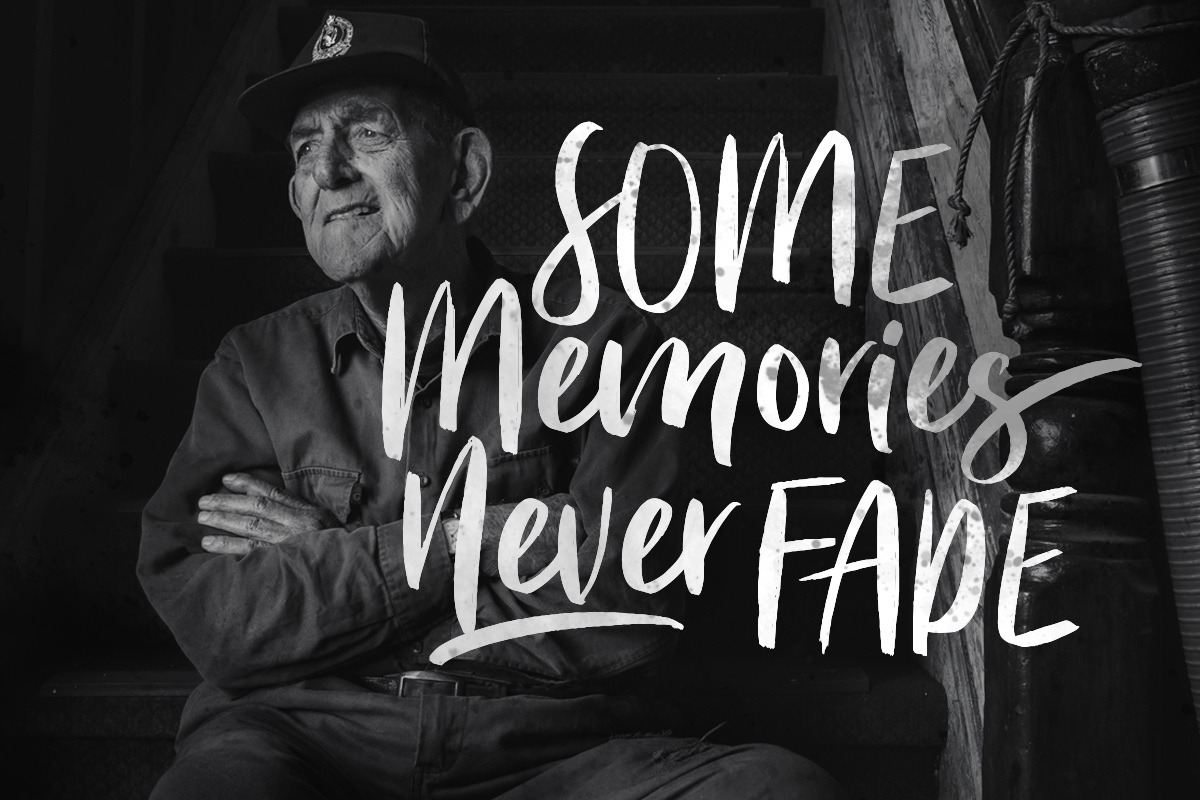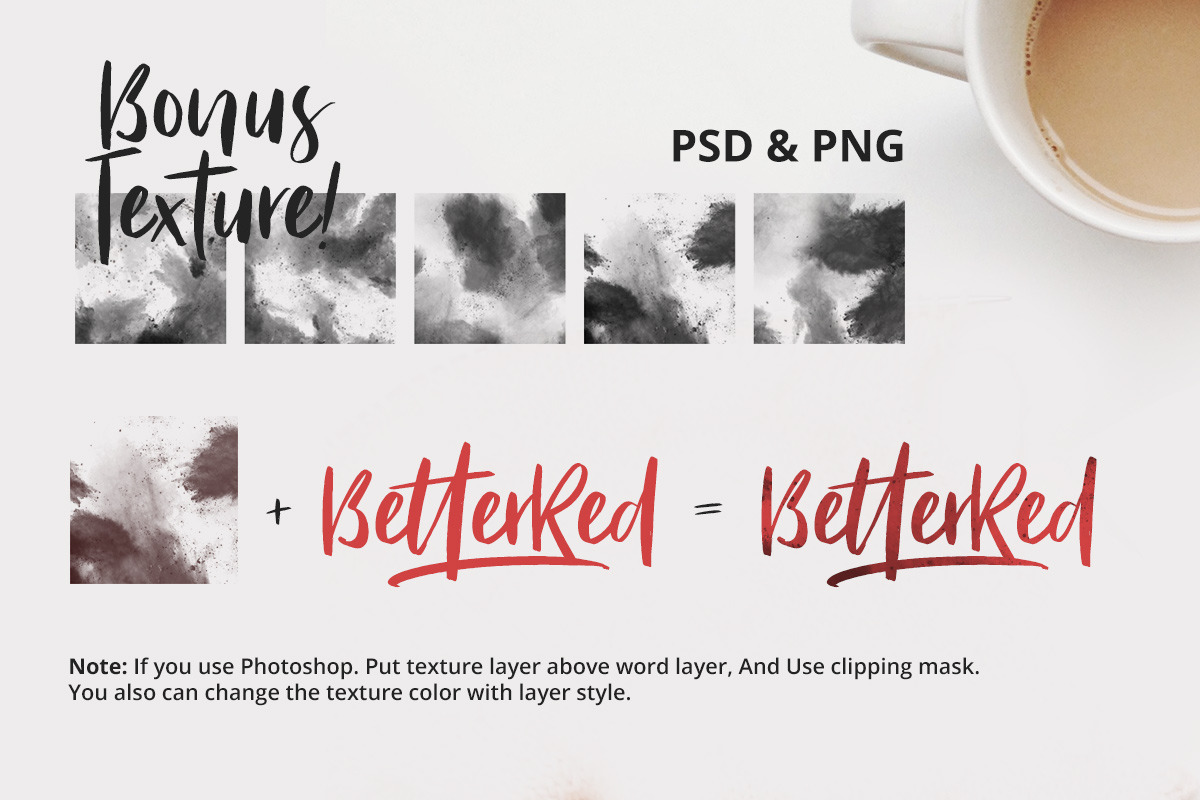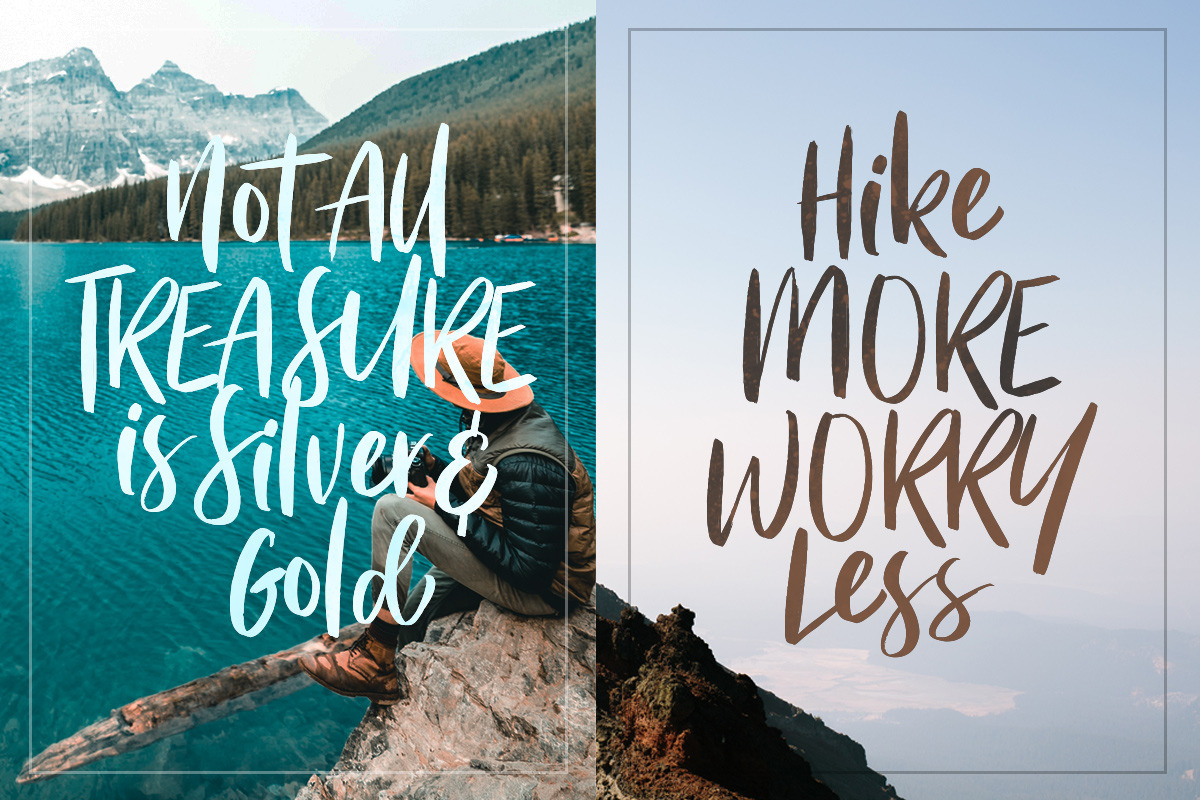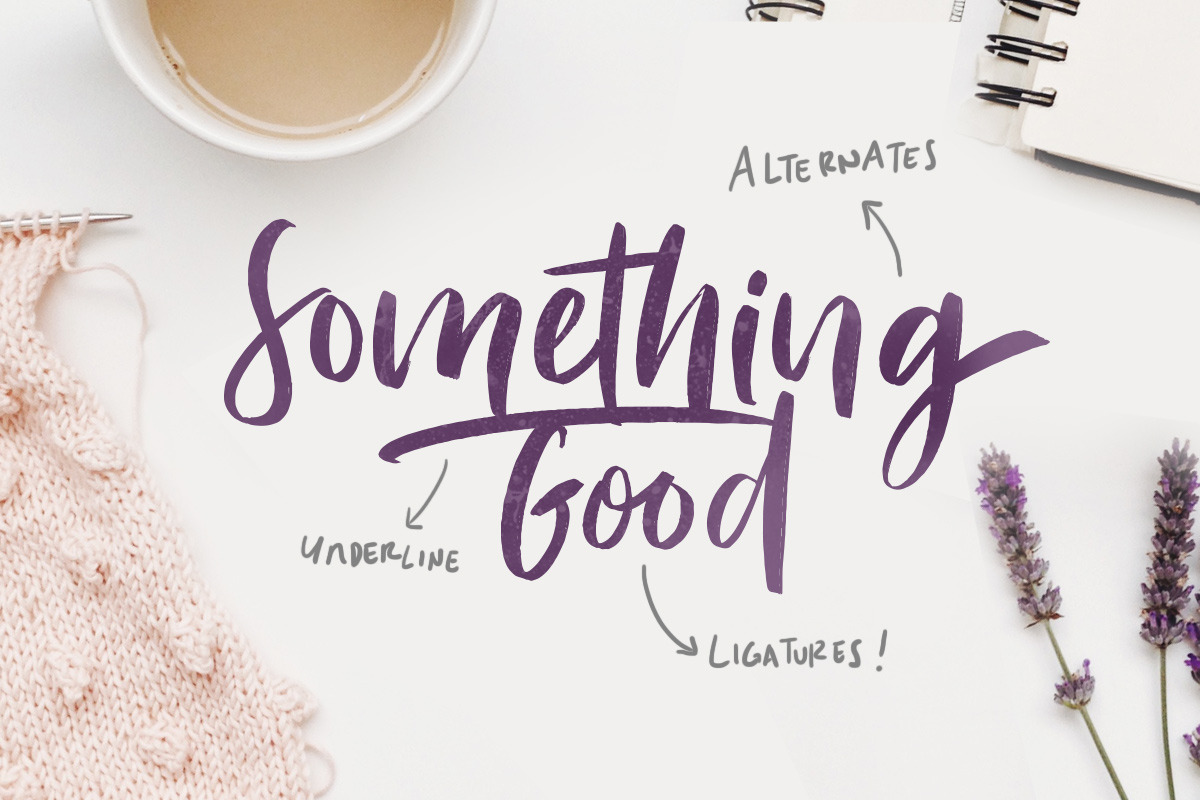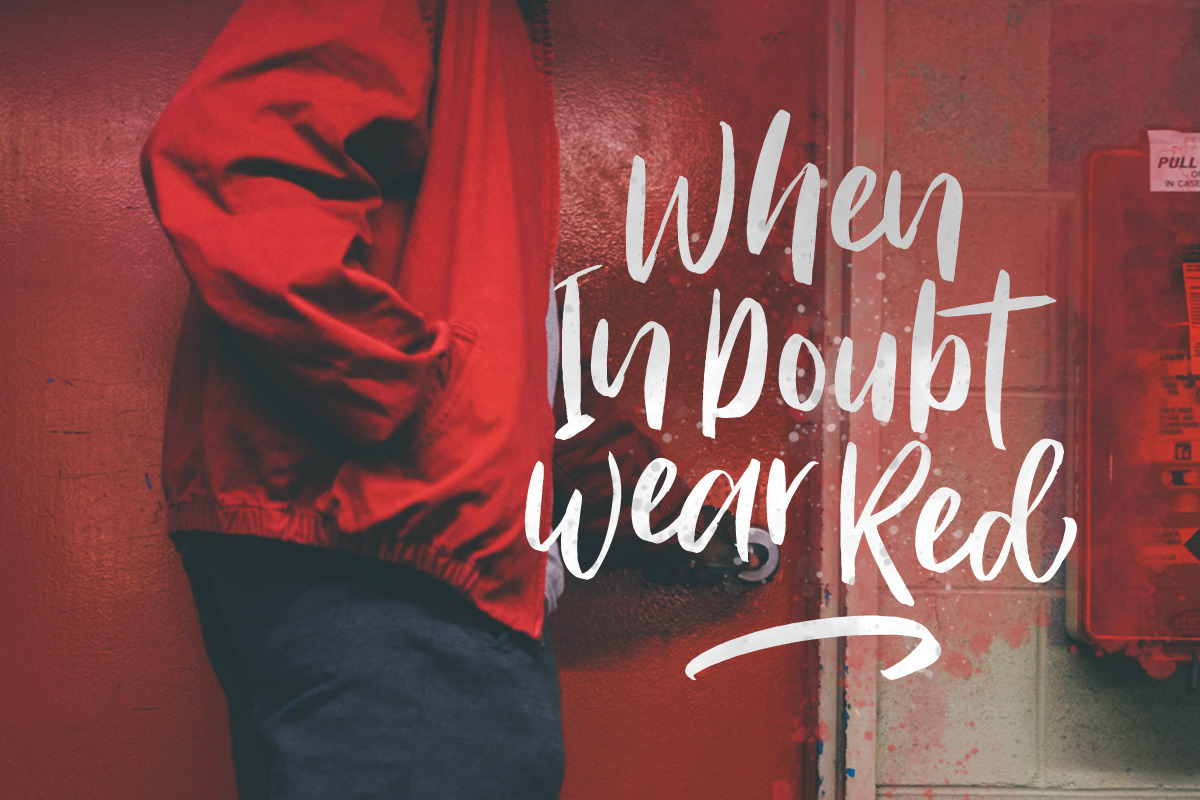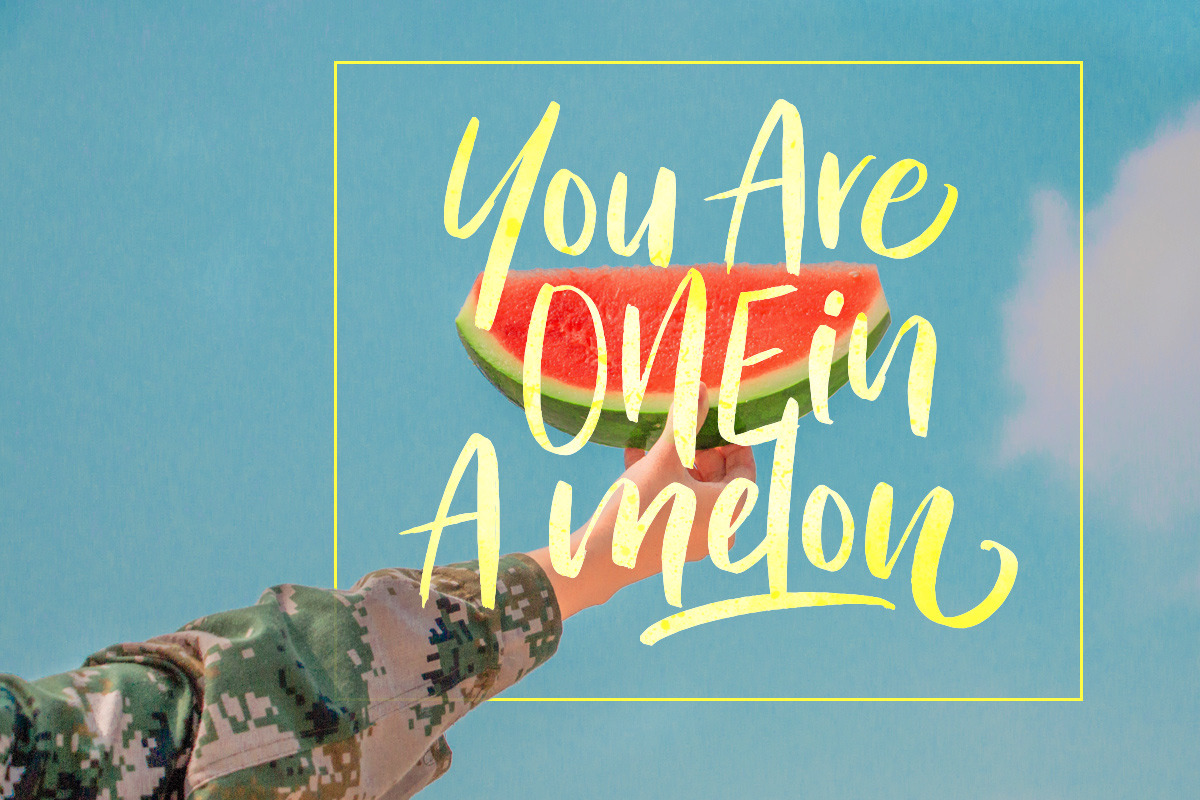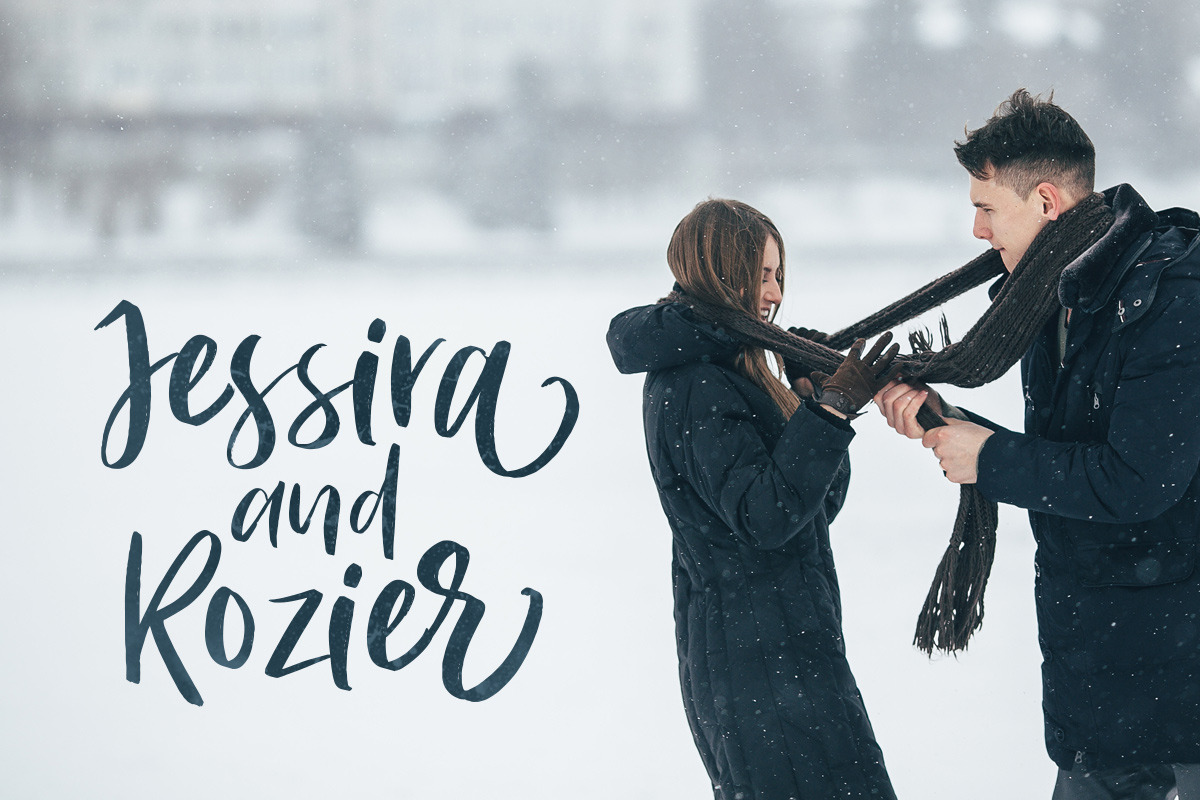
Bitter Rose - Brush Font (+TEXTURES)
Introducing, Bitter Rose, Brush font with textures!
Bitter Rose is brush font that contain stylistic alternate, swash, etc to create your own customized signature, quotes, or logo design. This font is support multi language. Available in OTF and TTF. Also Support PUA.